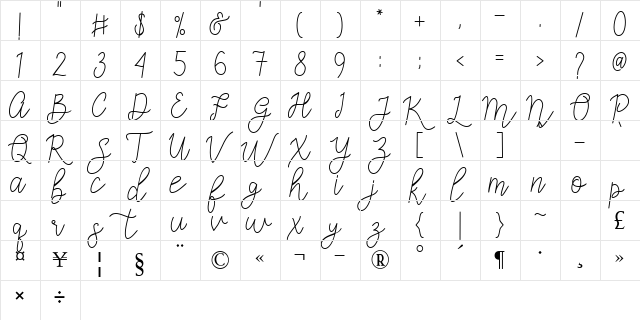
Kelly Leevan Regular
| Designer | AEN Design |
Design Context for Kelly Leevan Typeface
Kelly Leevan is a composed and adaptable typeface that performs quietly and consistently across a wide range of design contexts.